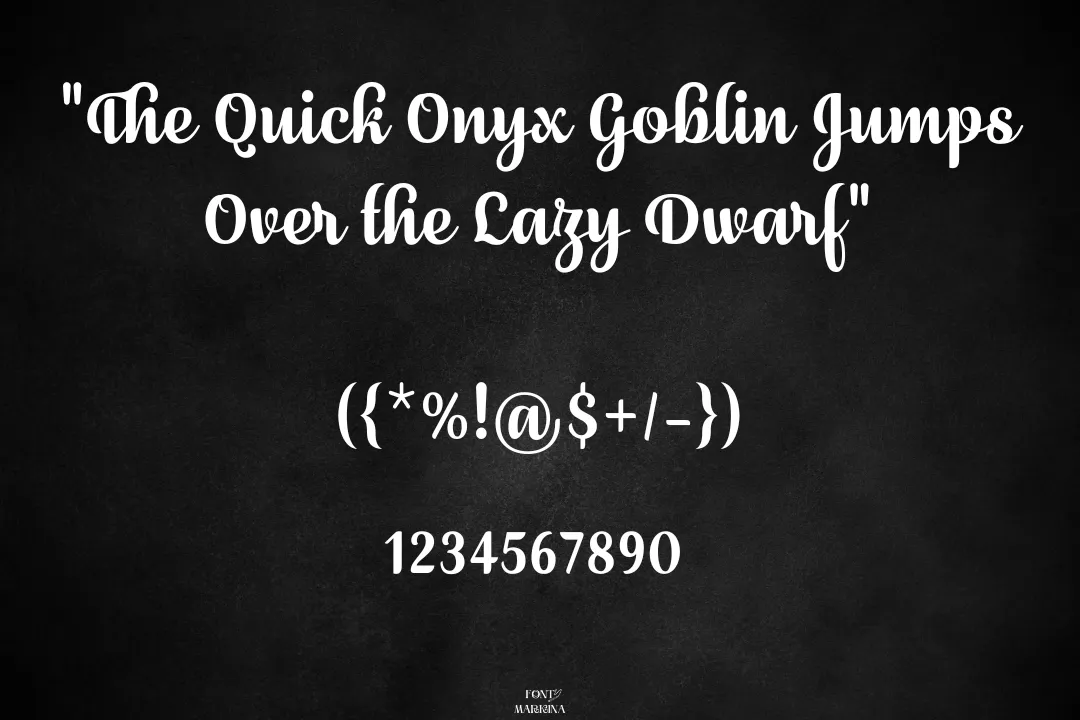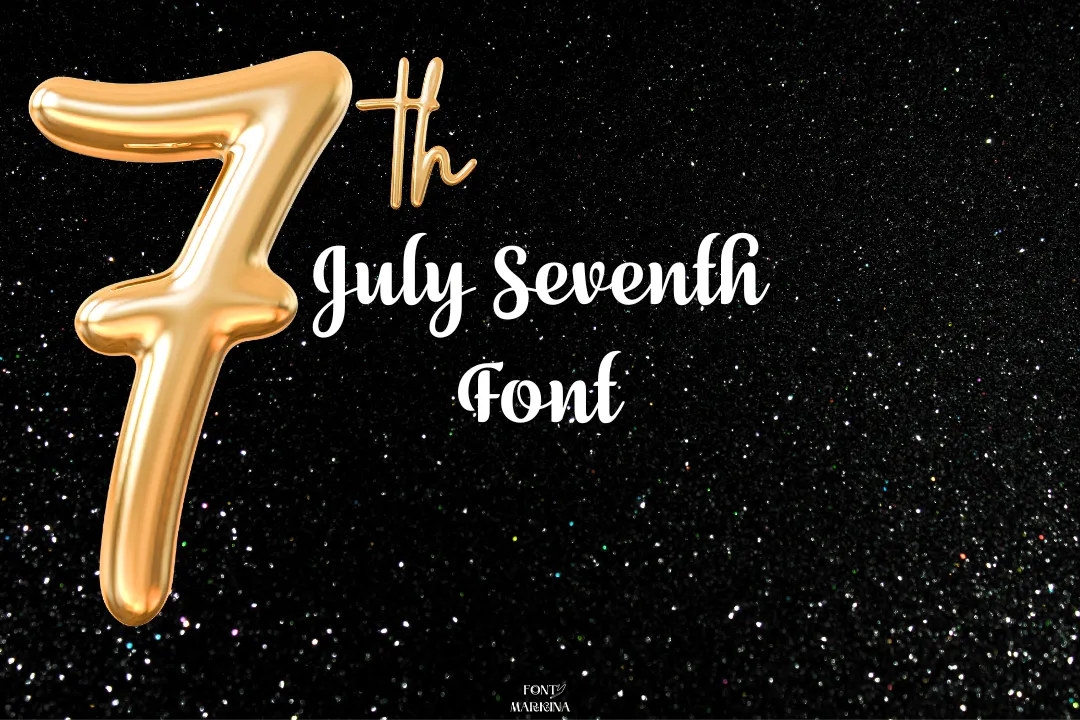
The July Seventh Font is a unique and elegant typeface designed by 7NTypes, a digital type foundry based in Bandung, Indonesia. This typography is a script texture with a modern and sophisticated style.
This family has a modern design, which makes it versatile and easy to read. This stunning typography includes a full set of uppercase and lowercase letters, as well as numbers, punctuation marks, and particular characters. The letters have a bold and slightly condensed look, which gives them a distinctive and memorable appearance. Its alternative Baybayin Doctrina font looks like the same style.
Who Can Use July Seventh Font
The July Seventh Font is primarily a Script font, which means it’s best suited for headlines, titles, and short pieces of text, it can also be used effectively in longer paragraphs when applied correctly.
You can use this texture to create subheadings within your paragraphs. Its bold and distinctive look will help break up your text and make it easier to read. If you’re including quotes within your paragraphs, the July Seventh typeface can be used to set them apart and make them more prominent. The italic version of the font is especially effective for this purpose.
You can use this family to create callouts, which are brief pieces of text that highlight important information within your paragraphs. Again, the bold and distinct design of the font makes it an ideal choice for this purpose. By making pairing this texture with Midway font you will achieve more extraordinary results.
It is perfect to highlight important phrases or keywords within your paragraphs. By changing the color of the font or applying bold or italic styles, you can draw attention to specific words or phrases and make them stand out.
| Designer | 7NTypes |
| Type | Script |
What is the category of the July Seventh typeface?
The July Seventh texture is a script typeface and falls under the modern and elegant style categories.
Is the July Seventh typeface a good font?
Yes, this typography is considered a good font due to its unique and elegant design.